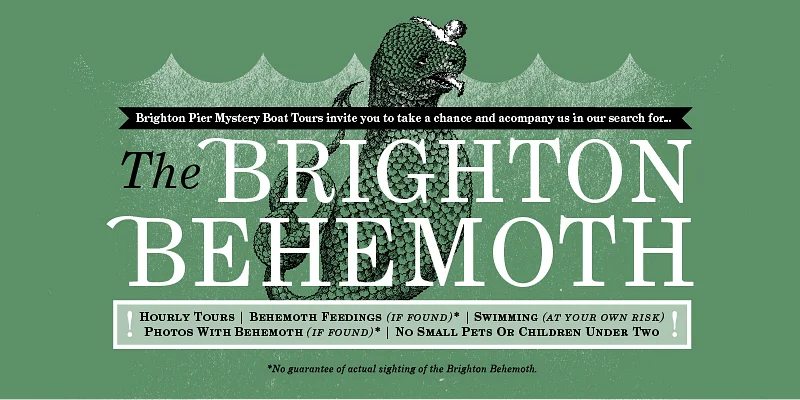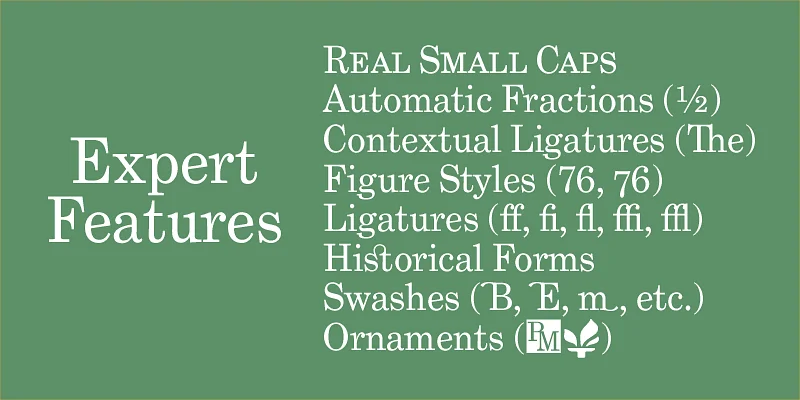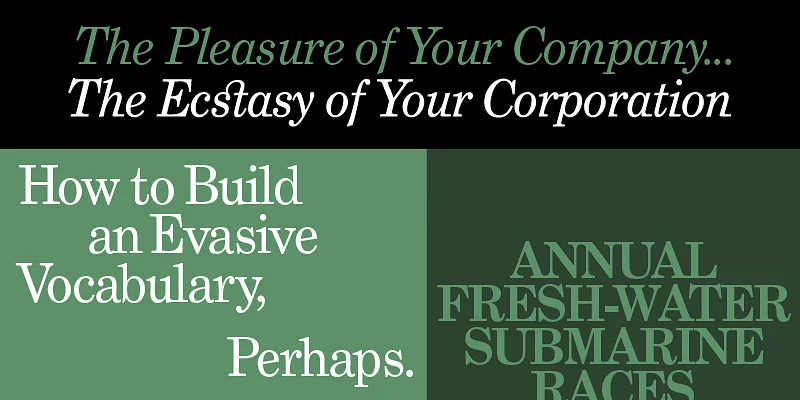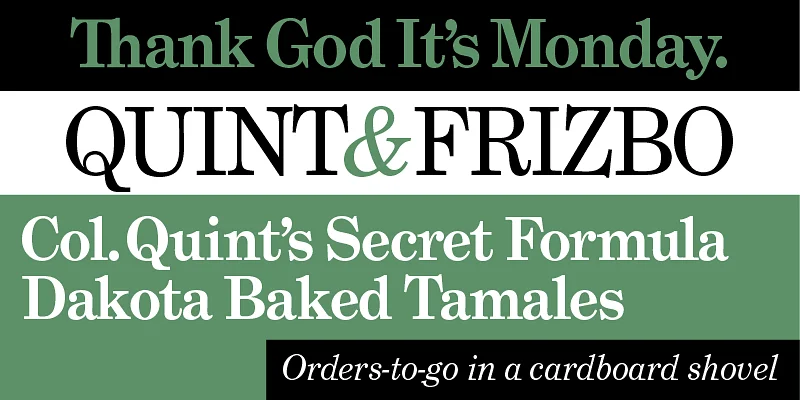
Grad Font
The Grad Font is perfect for graduation ceremony materials, academic achievement diplomas, university commencement programs, educational milestone celebrations, scholarly recognition awards, graduation party invitations, academic excellence communications, student achievement certificates, educational institution branding, and distinguished academic commemorations.
What makes the Grad Font so exciting is its perfect embodiment of academic achievement with celebratory elegance that creates an ideal typeface for honoring educational milestones and scholarly accomplishments. This distinguished typeface features confident letterforms, achievement-focused character spacing, and academic design elements that perfectly capture the essence of graduation pride and educational success. The font's celebratory personality and academic dignity make it an exceptional choice for educational institutions, graduation services, and academic organizations seeking to communicate achievement, pride, and authentic educational excellence with memorable ceremonial appeal.
The Grad Font family includes achievement variations and academic alternates, featuring multiple graduation weights, scholarly character options, and celebratory styling elements. Each variation maintains the signature academic appeal while offering different levels of ceremonial expression and graduation sophistication, giving designers extensive possibilities for crafting meaningful educational communications and prestigious academic brand personalities that celebrate learning achievements.
This exceptional Grad Font represents the perfect academic typography solution for educators who want to infuse their projects with authentic graduation dignity and celebratory academic spirit that resonates with students, families, and educational communities. Whether you're developing graduation ceremony materials, creating academic recognition awards, or designing educational milestone communications, this versatile academic font delivers distinguished results that connect with audiences seeking genuine educational pride and scholarly celebration.
The dignified design characteristics of Grad Font showcase masterful academic typography craftsmanship, with each letter carefully crafted to promote educational pride and ceremonial appeal while maintaining excellent readability and scholarly visual consistency. The font's comprehensive character set includes uppercase and lowercase letters, numerals, academic punctuation, and graduation symbols, ensuring complete functionality for diverse educational projects and international academic applications.
Expertly designed for both digital and print academic applications, this ceremonial font maintains its graduation character and educational dignity across various sizes and formats. From large-scale commencement displays to detailed diploma designs, Grad Font adapts appropriately to any academic design challenge while preserving its distinctive celebratory personality and authentic graduation appeal.